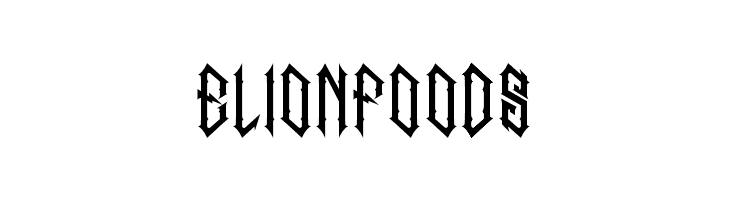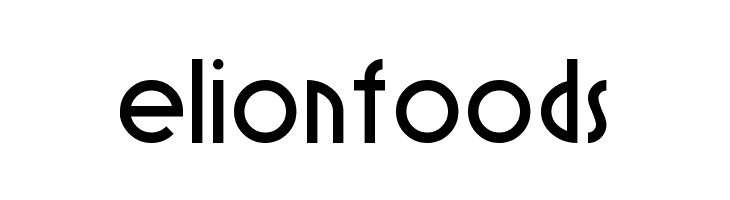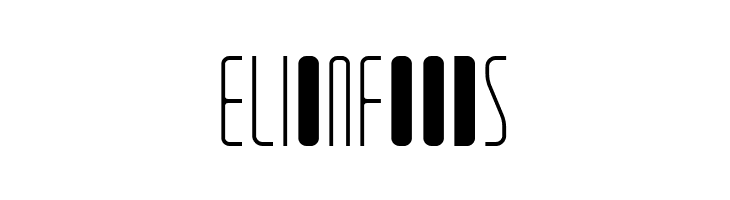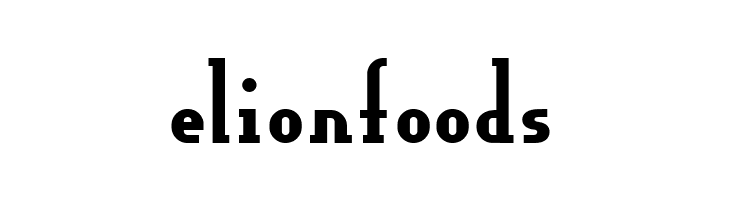
A classic serif font with calligraphic influences and elegant, angular serifs.
A bold blackletter font with sharp, angular lines and Gothic influences.
A bold, angular font with geometric influences, ideal for impactful designs.
A sleek, modern font with an Art Deco influence, featuring elongated, narrow characters and high contrast.
A bold, geometric font with art deco influences, featuring sharp, angular letterforms.
A modern font with high contrast and geometric influences, ideal for striking designs.
A geometric, blueprint-style font with a modern and technical look.
A bold, modern font with geometric influences and strong visual impact.